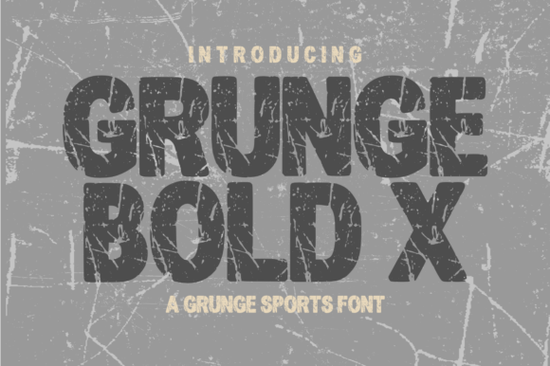
If you're designing anything that needs to look tough, raw, and full of energy like gym branding, sports apparel, or event posters the Grunge Bold X font is worth a serious look. It’s not just another bold typeface; it’s built with heavy-duty letterforms and layered with realistic weathering that gives your designs an authentic, battle-tested feel.
This kind of texture matters when you’re trying to convey grit, effort, or intensity. Clean fonts work well for minimalism or corporate settings, but they can’t replicate the character that comes from intentional imperfection. Grunge Bold X leans into those rough edges, making it ideal for CrossFit boxes, skate brands, MMA promotions, or even rugged outdoor gear labels.
What makes this font different from other grunge styles?
Many grunge fonts rely on digital filters or basic distress effects that can look artificial. Grunge Bold X goes further by embedding texture directly into each glyph. The result? A consistent, print-ready aesthetic that holds up whether you’re screen printing on tees or creating large-format posters.
It also avoids being overly chaotic. Despite its rough appearance, the letterforms remain legible and structurally solid important if your message needs to be read quickly at a glance (like on a banner or social media graphic).
Who should use Grunge Bold X?
This font shines in hands-on creative fields:
- Print-on-demand sellers creating motivational fitness shirts or extreme sports merch
- Local gym owners building their own logos or promotional flyers
- Graphic designers working on athletic event branding or urban streetwear
- Crafters making vinyl decals, wood signs, or sublimation mugs with a rugged vibe
If your project benefits from visual weight and attitude without tipping into unreadability this font delivers.
How to pair it effectively
Grunge Bold X works best as a headline or display font, not for body text. To balance its raw energy, pair it with a clean, geometric sans-serif. Think fonts like Montserrat, Bebas Neue, or even something sharp like Thick Honey for contrast that still feels cohesive.
For example: - Use Grunge Bold X for your main title (“IRON CLUB”) - Pair it with a sleek sans for supporting info (“Est. 2020 | Open Daily”)
This combo creates what many designers call a “tactical” look: professional enough for business, aggressive enough for the gym floor.
Other display fonts with similar impact
If you like the boldness of Grunge Bold X but want alternatives for variety, consider these Creative Fabrica options:
- Thick Juliet – offers dramatic weight with smoother edges, great for fashion or luxury streetwear
- Preppy Styles – a cleaner, collegiate-inspired alternative if you need retro charm over grit
- Teacher Outline – more playful and hand-drawn, useful for community events or youth sports
Each serves a different mood, but all share that high-visibility, display-first approach.
Tips for using Grunge Bold X in real projects
Because of its texture, avoid using it at very small sizes it’s meant to be seen big. Also, test how it prints: some distressed fonts lose detail on low-resolution printers, but Grunge Bold X maintains integrity thanks to its vector-based design.
When designing apparel, leave enough space around the text. The rough edges can visually “bleed,” so padding helps keep the design crisp. And if you’re layering it over photos, consider a subtle drop shadow or outline to ensure readability.